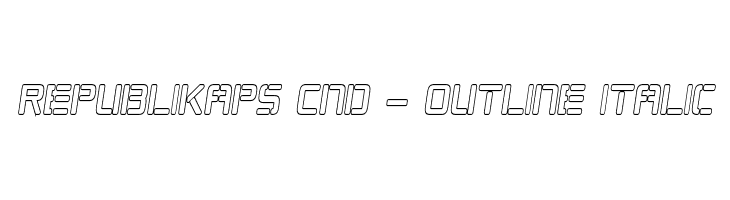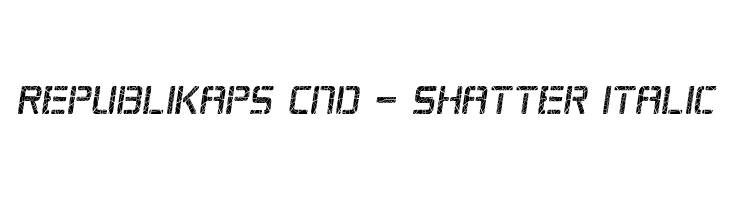
A bold, geometric font with a maze-like, three-dimensional effect.
A bold, maze-patterned, italic font with a modern and dynamic style.
A modern, geometric outline font with a futuristic aesthetic.
A modern, italicized outline font with a condensed and geometric style.
A bold, geometric font with a shadow effect for a 3D appearance.
A bold, condensed, shadowed, and italic font with a modern geometric style.
A bold, shattered glass effect font with a modern and dynamic style.
A bold, shattered-effect, italicized font with a modern and dynamic style.
A 3D sketch-style font with geometric, angular letterforms and a modern aesthetic.
A condensed, italicized sketch-style font with a three-dimensional outline.